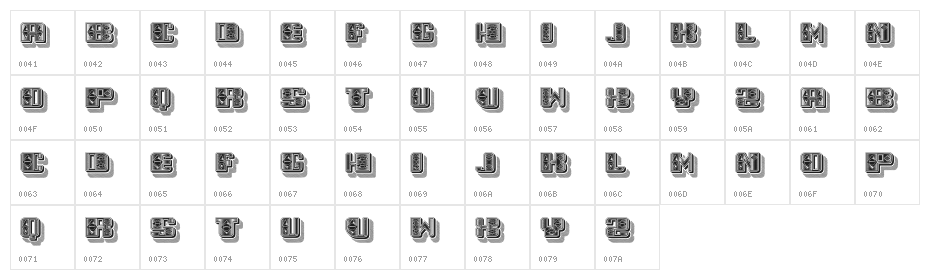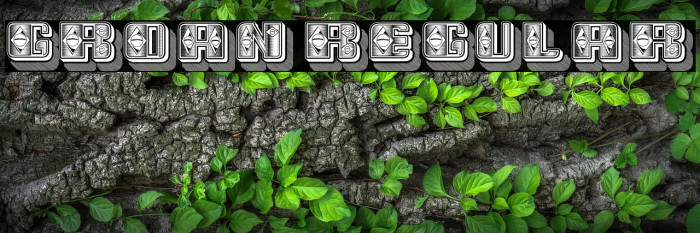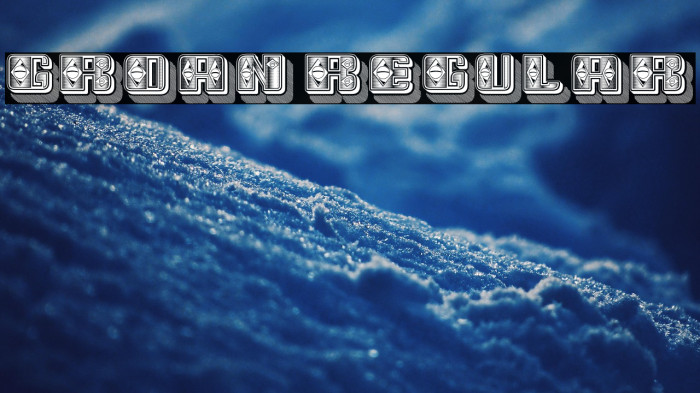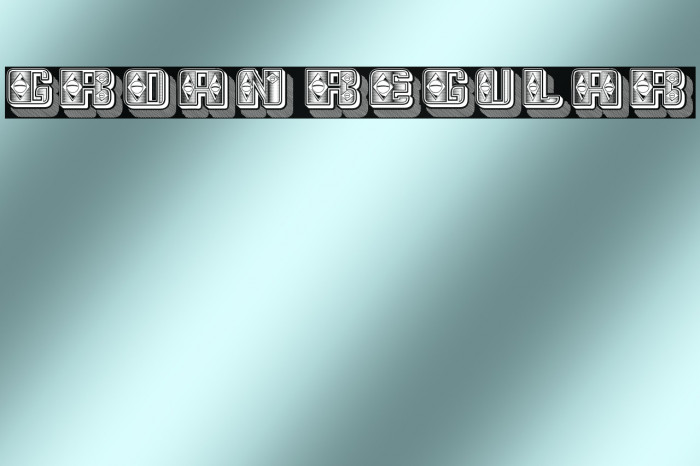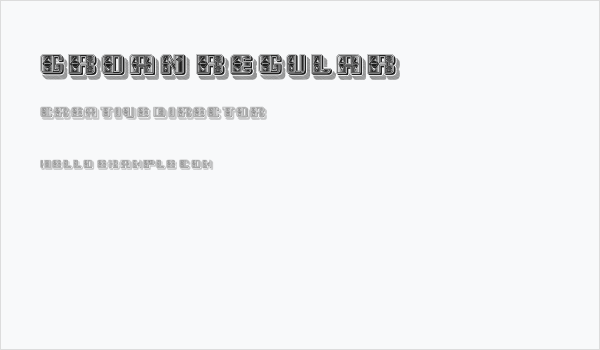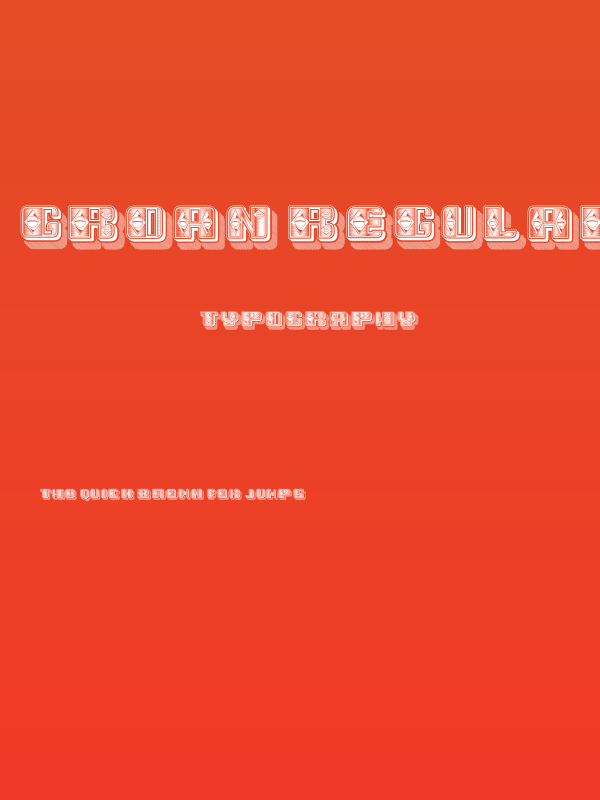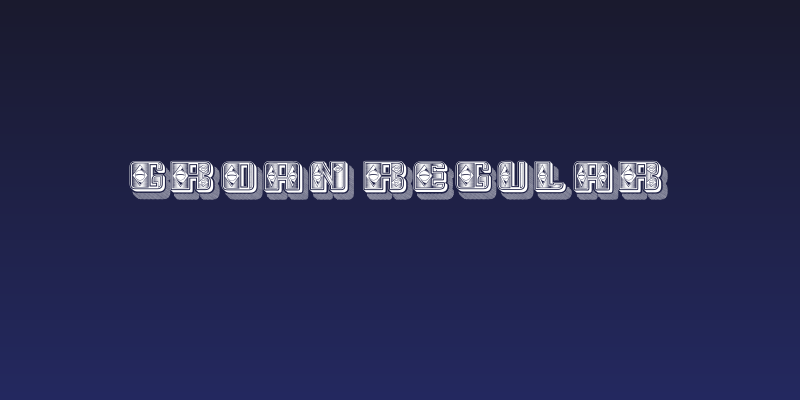
Groan Regular Font
Groan Regular Description
This font features a bold, three-dimensional design with intricate line work and shading that gives it a unique, eye-catching appearance. The characters are blocky and robust, with a strong presence that stands out in any design. The detailed patterns within each letter add depth and complexity, making it ideal for projects that require a decorative and artistic touch. The font's style is reminiscent of vintage poster art, combining a sense of nostalgia with modern flair. Its boldness and intricacy make it suitable for headlines, logos, and other display purposes where a strong visual impact is desired.
| Overall Style | Vintage, Decorative |
| Proposed Projects | Ideal for vintage-themed posters, eye-catching headlines, artistic logos, and decorative signage. |